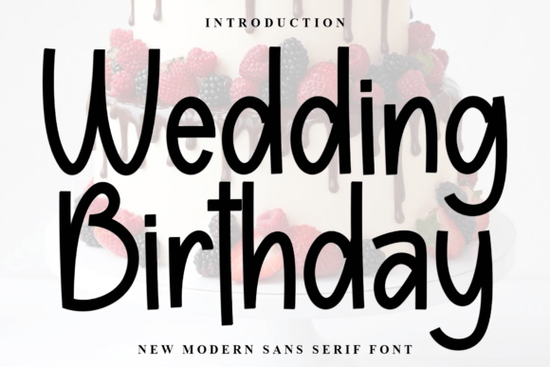
If you're looking for a font that feels personal, warm, and just right for heartfelt moments like weddings, birthdays, anniversaries, or even baby announcements the Wedding Birthday Font fits naturally into your workflow. It’s not overly ornate or stiff; instead, it balances soft curves with intentional contrast in stroke weight, giving each letter quiet confidence without shouting for attention. That makes it especially useful if you design greeting cards, printable invitations, wall art, or custom mugs and tote bags for small celebrations.
What kind of projects does this font work well with?
This font shines where tone matters as much as legibility. Think handwritten-style wedding signage, layered birthday banners for photo backdrops, or subtle monogrammed stationery. Because its characters include standard Latin letters, numbers, punctuation, and basic accented characters, it handles English-language projects smoothly including bilingual event invites where light styling is preferred over heavy decoration.
How does it compare to other popular display fonts?
Unlike bolder or more angular options like Urban Crack Font, which works best for edgy apparel or urban posters, Wedding Birthday leans gentle and approachable. It shares some warmth with Sandy Beach Font, but with more structure so it holds up better at smaller sizes on tags or labels.
If you often reach for script fonts but find them hard to pair with sans-serif body text, this one bridges the gap. Its rhythm feels hand-drawn but remains consistent enough to sit comfortably beside clean typefaces like Montserrat or Open Sans. For crafters who cut vinyl or print iron-ons, it cuts cleanly at medium to large sizes no fragile serifs or ultra-thin joins to snag on blades or peel poorly.
Where else can you use it beyond weddings and birthdays?
Because of its emotional resonance not just its appearance it’s quietly effective for:
- Small business welcome signs (e.g., “Welcome to Our Bakery” or “Open for Brunch”)
- Personalized baby milestone cards (“First Smile,” “Six Months Old”)
- Teacher appreciation gifts or classroom decor
- Print-on-demand journals or planners with seasonal covers
- Hand-lettered-style social media graphics for local florists or photographers
You’ll notice it doesn’t try to do everything. It’s not a full variable font with weights or stylistic sets and that’s part of its strength. Simplicity means fewer decisions, faster mockups, and consistency across your product line. If you’ve ever spent too long choosing between similar scripts or tweaking spacing manually, this font reduces that friction.
Which fonts pair well with Wedding Birthday Font?
For contrast and readability, try pairing it with:
- Outline Font for bold headers or layered effects (think “Happy Birthday” in Wedding Birthday, with “2024” in Outline beneath)
- Fancy Scribble Font for playful accents like tiny hearts or stars replacing bullets in a gift list
- Preschool Poppers Font when designing for kids’ parties: use Wedding Birthday for names and Preschool Poppers for fun phrases like “Cake Time!”
Even something as straightforward as Urban Crack Font can create smart contrast if you’re designing a modern bridal shower invite and want “RSVP” to stand out with texture while keeping names soft and inviting.